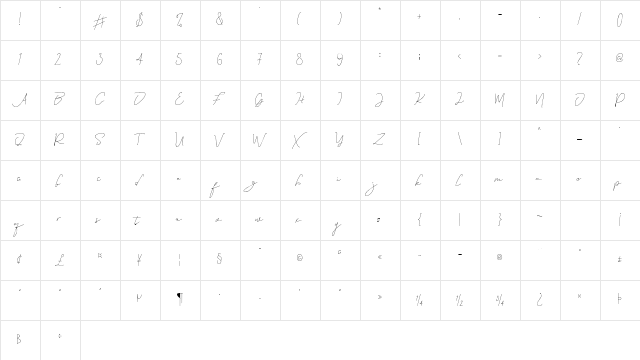
Eveline Cara Regular
| Designer | WrasStudio 2019 |
Design Context for Eveline Cara Typeface
Eveline Cara is a composed and adaptable typeface that performs quietly and consistently across a wide range of design contexts.